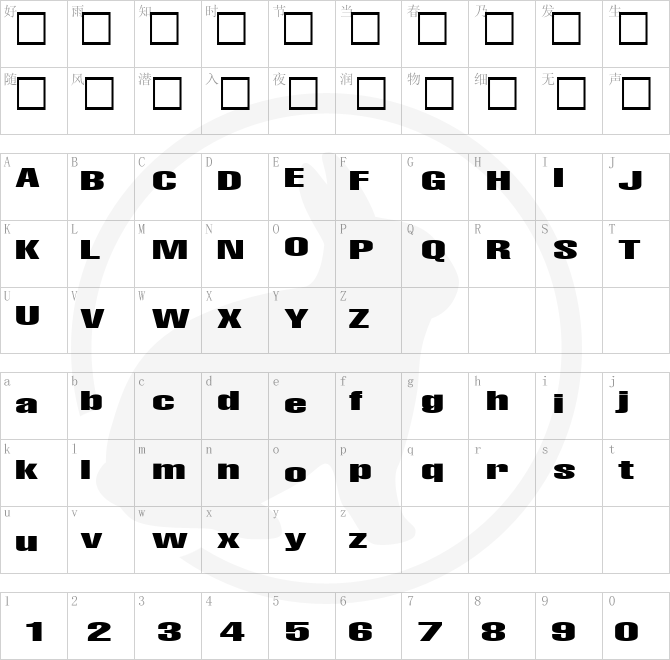
- Font Name:BabyMaker35 ttext
BabyMaker35-Regular-ttext.ttf is a very beautiful artistic font, BabyMaker35-Regular-ttext.ttf is widely used in the design and printing of various books and pictures,BabyMaker35-Regular-ttext.ttf has a strong visual impact,BabyMaker35-Regular-ttext.ttf is a commonly used font in newspapers, magazines and books, and is used in posters, e-commerce Poster design, store design, logo design, font design and other fields.BabyMaker35-Regular-ttext.